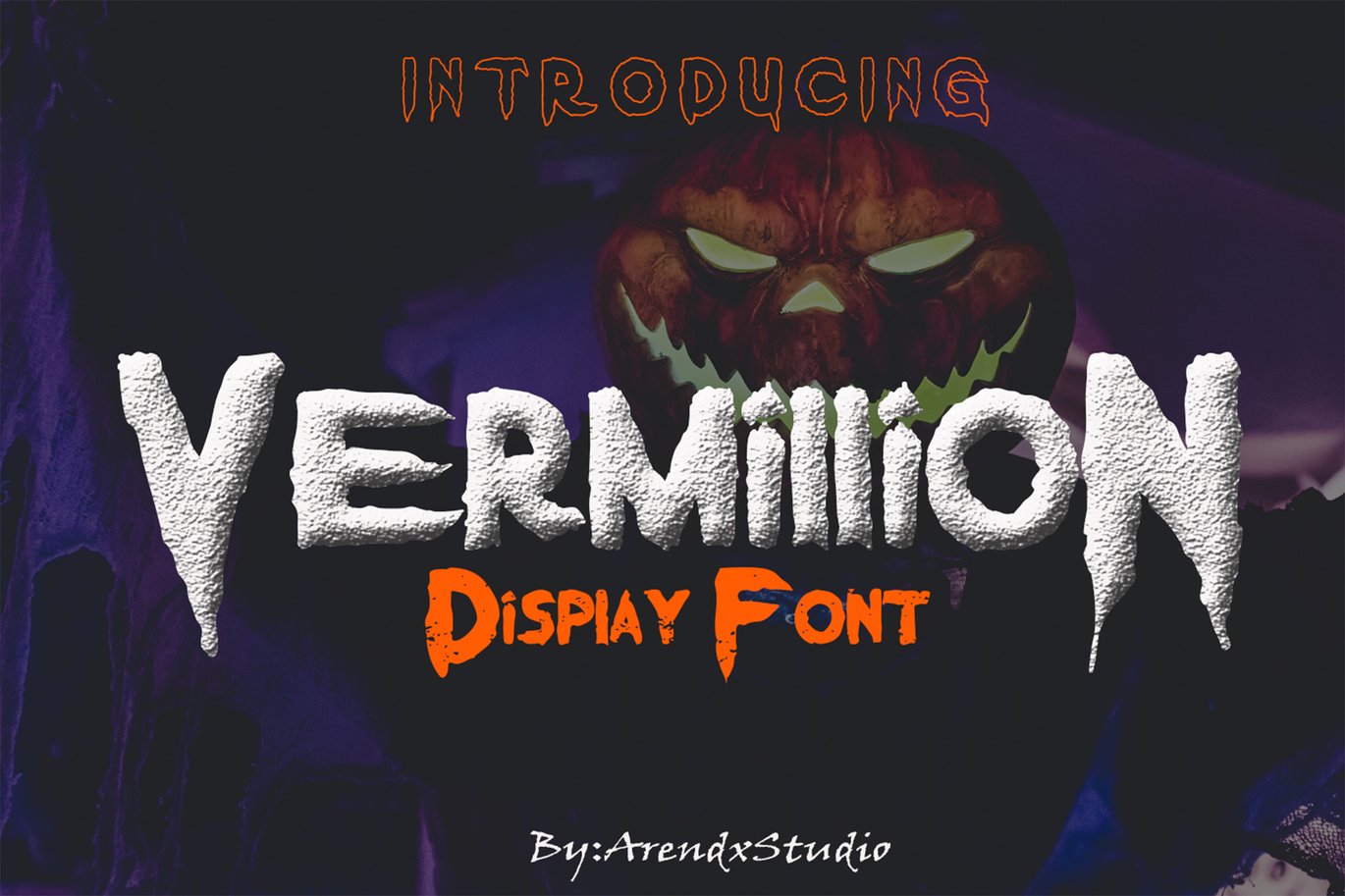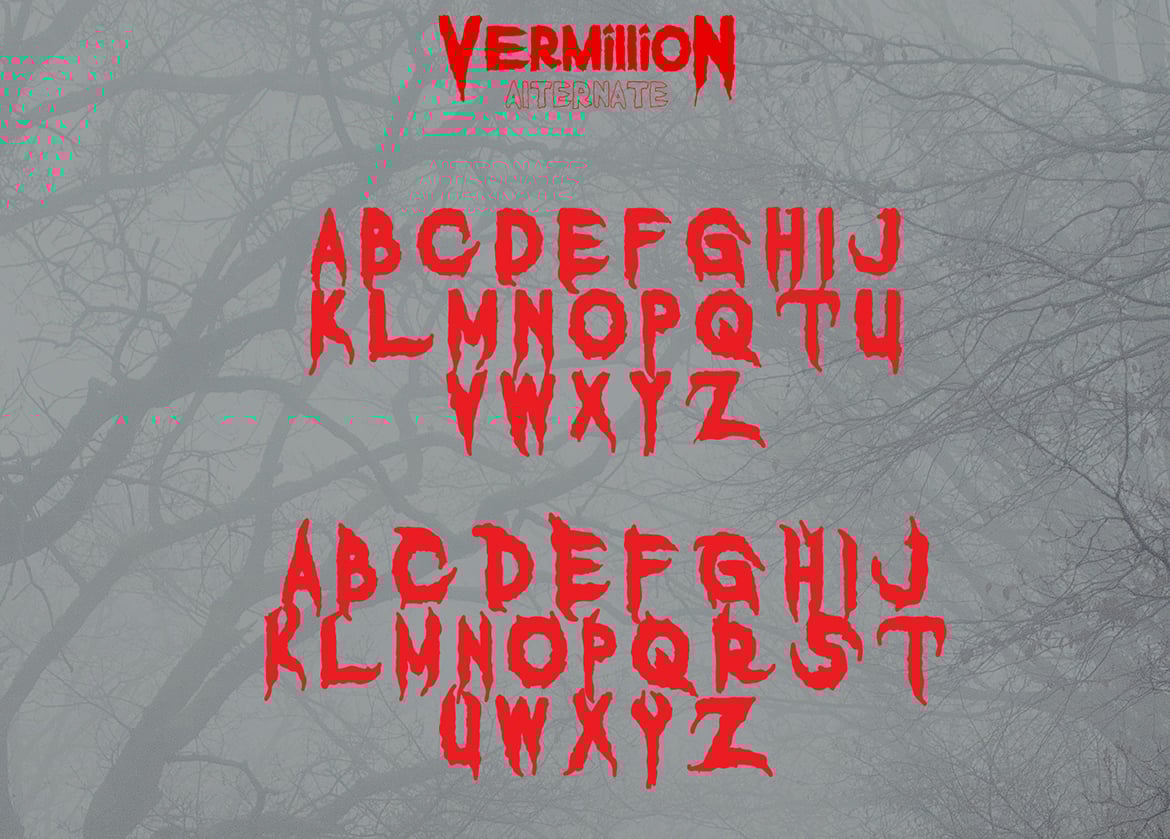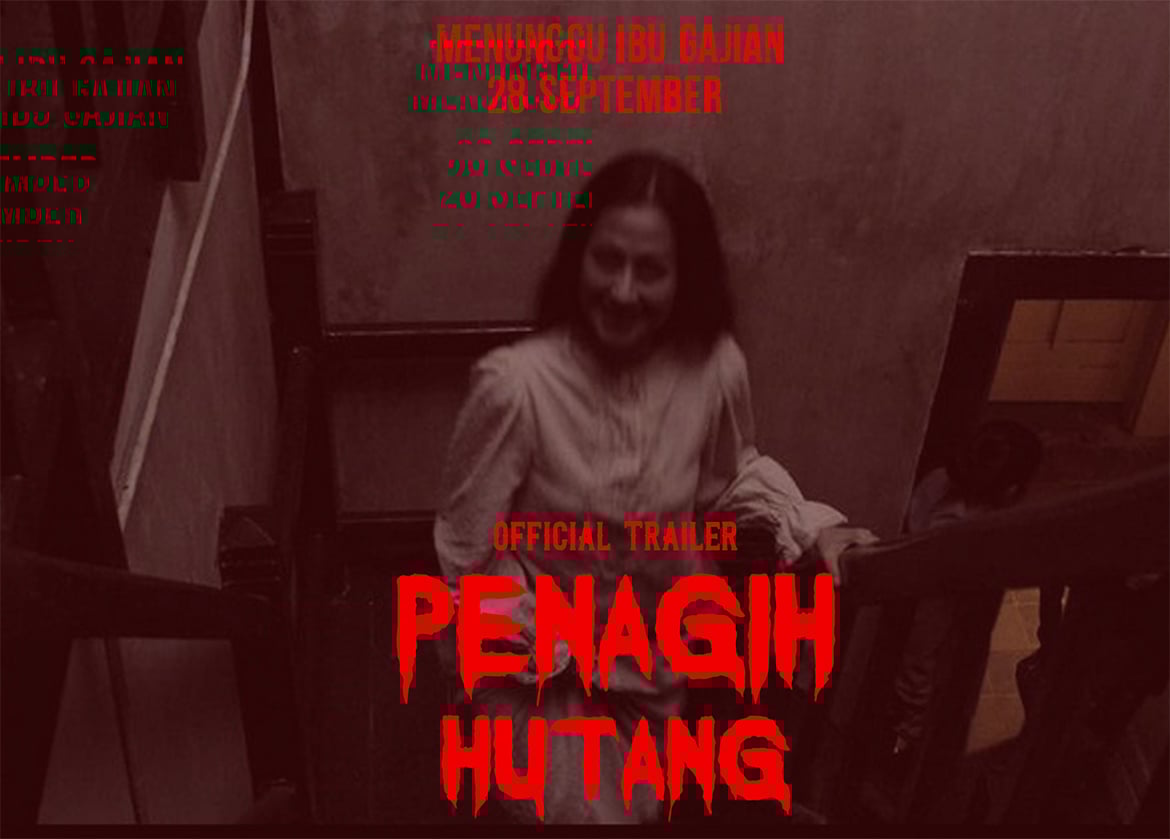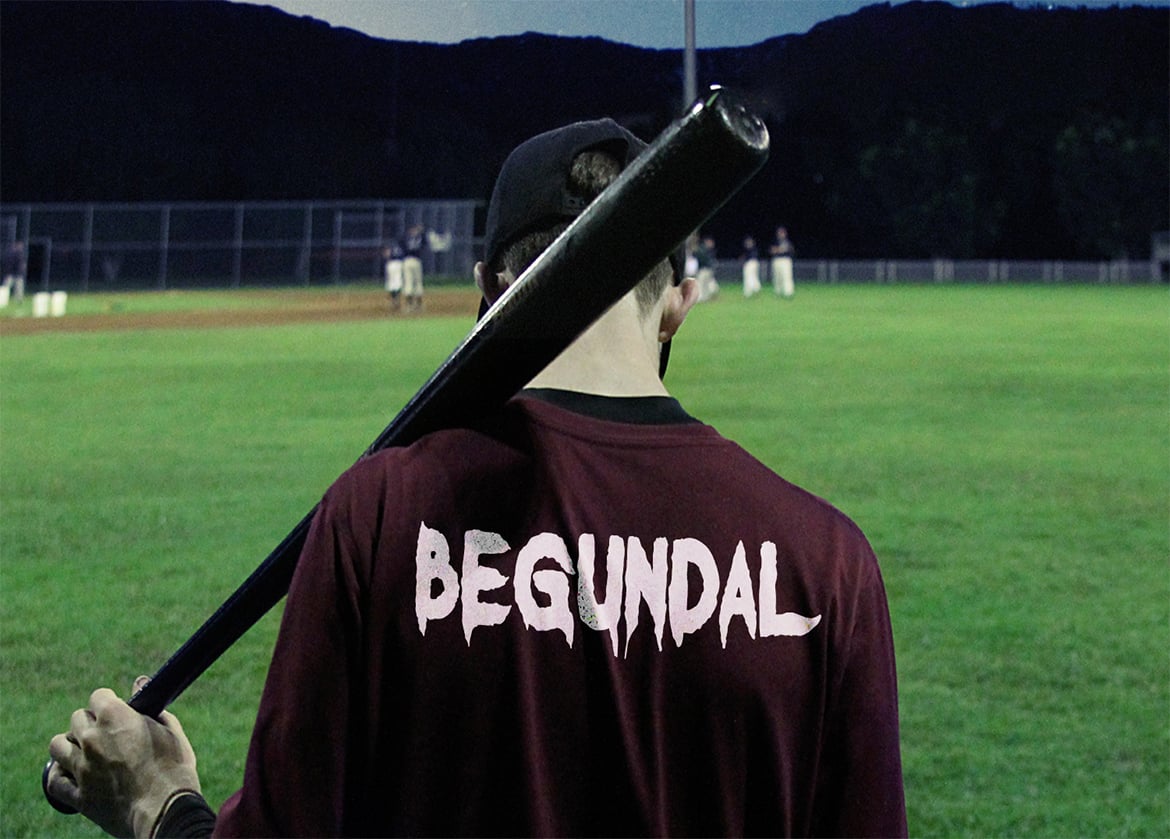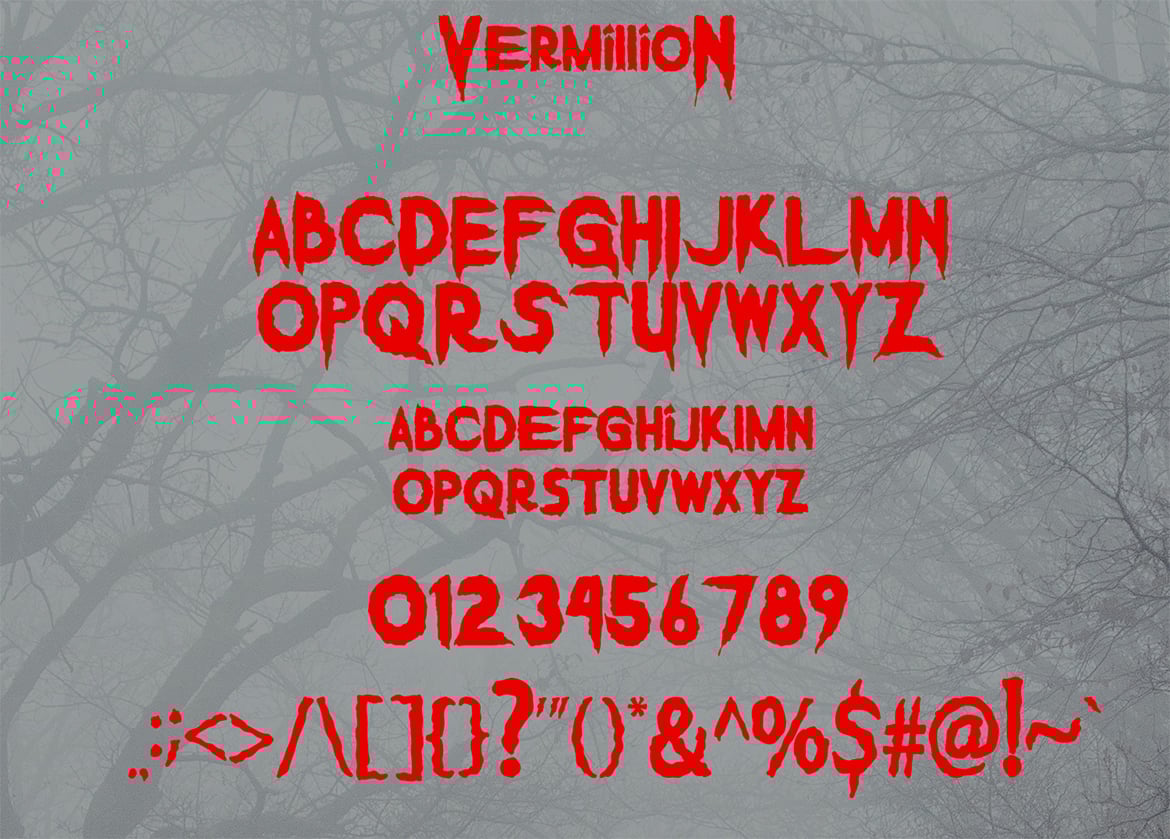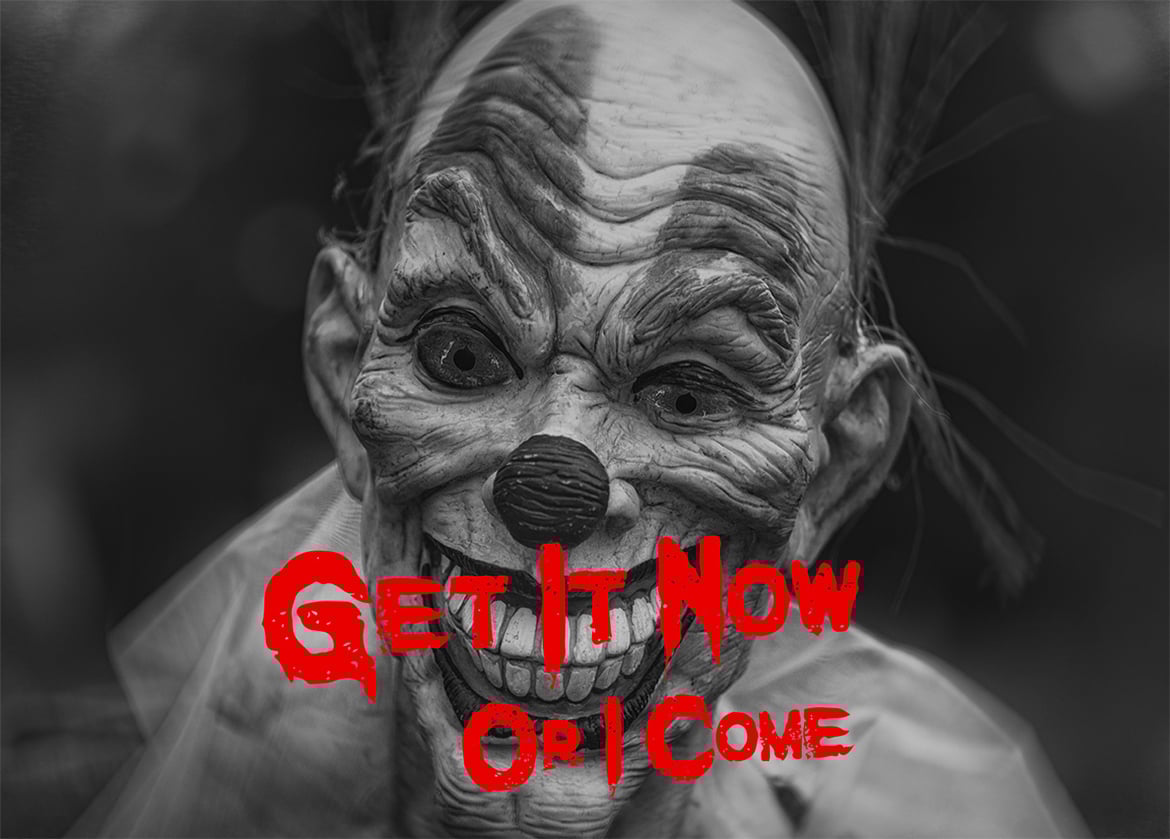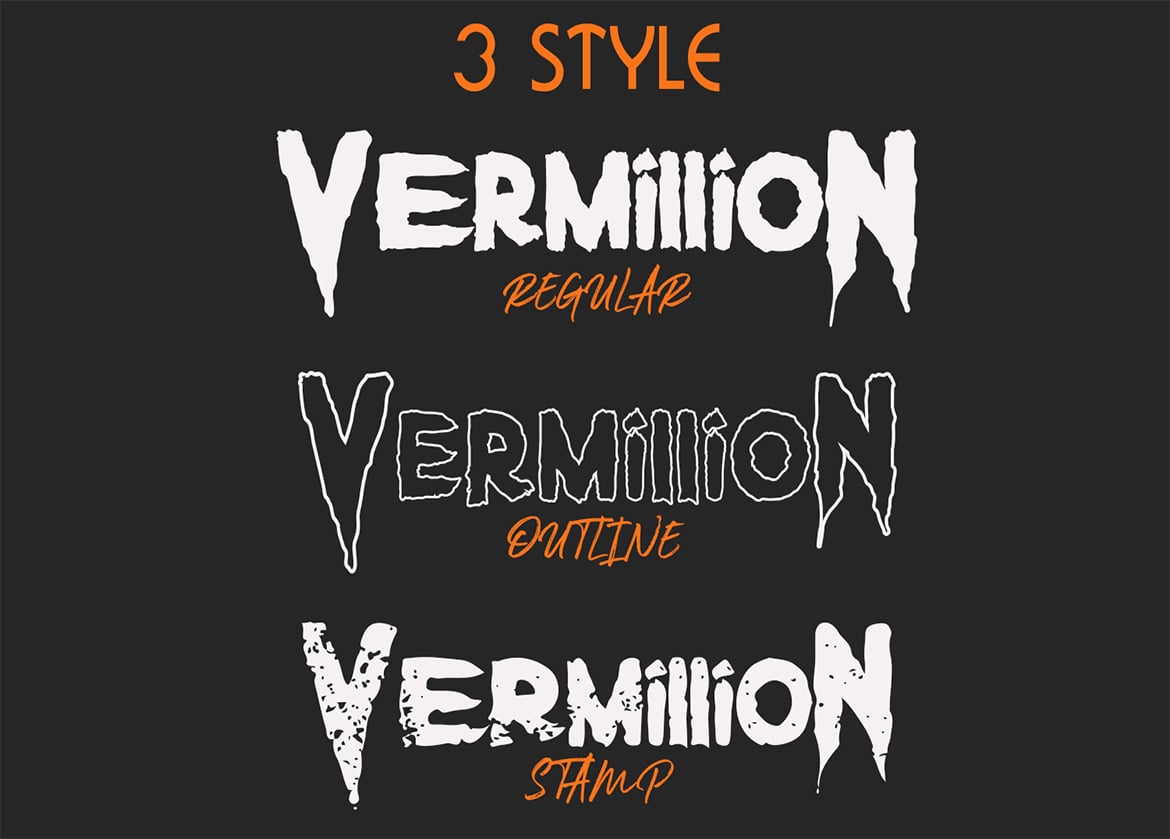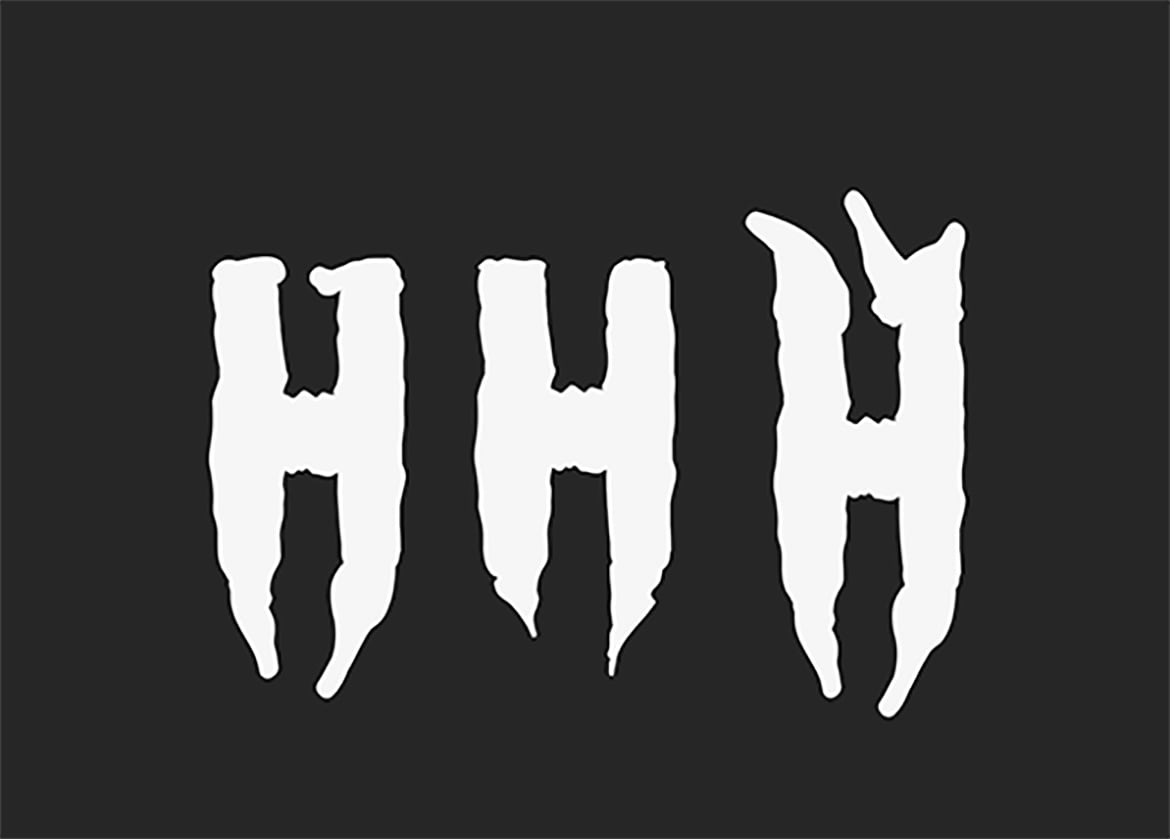
Vermillion Halloween Font
Inspired by horror films and Halloween, Vermillion Halloween is a bold and scary display font with sharp edges. This will add a touch of your design theme that is very suitable for use in your design
and vermillion have 3 different styles: regular, outline and grunge
Vermillion is equipped
3.Standard glyphs
4.Alternative characters